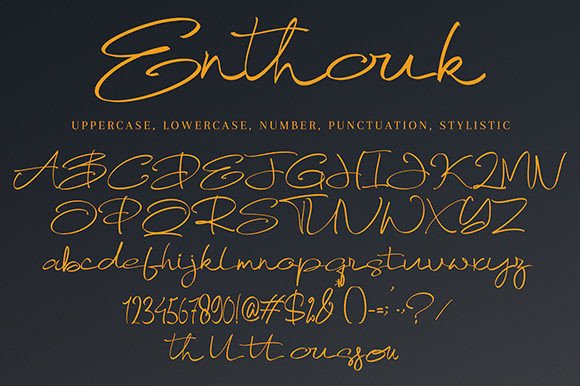
Introduction to Enthouk Font
Have you ever been working on a creative project, pouring your heart and soul into it, only to feel like something is missing? That’s when the perfect design resource can make all the difference. For me, that moment came when I stumbled upon the Enthouk Font – a beautiful and light handwritten font that added a luxury spark to my design project.
With its unique feel and stunning impact, the Enthouk Font is a game-changer for any designer looking to elevate their work. Whether you’re working on a project with a transparent background or a complex layout, this font is sure to bring a touch of sophistication and elegance. And the best part? It’s available for free download, making it a high-quality resource that’s accessible to designers of all levels.
In this article, we’ll dive deeper into the world of the Enthouk Font and explore its many benefits for designers. From its versatility to its professional appeal, we’ll cover everything you need to know about this incredible design resource.
Key Features of Enthouk Font
- High-quality design resource with a wide range of creative possibilities for your next project.
- Includes a transparent background, making it ideal for use in graphics, logos, and other design elements.
- Unique and stylish font design, perfect for adding a touch of sophistication to your creative project.
Honest Review: Enthouk Font
I recently stumbled upon the Enthouk Font, a high-quality design resource that has been making waves in the creative community. As a designer, I’m always on the lookout for fresh and unique fonts to elevate my projects.
The Enthouk Font is a stunning addition to any design arsenal, offering a wide range of styles and formats. The transparent background feature is a game-changer, allowing for seamless integration with any creative project. Whether you’re working on a branding campaign or a simple logo, this font is sure to impress.
- Stylish and modern designs
- Some users may find the font too bold or overpowering
Overall, I’m thoroughly impressed with the Enthouk Font. Its unique style and high-quality design make it a valuable addition to any designer’s toolkit. While it may have some limitations, the benefits far outweigh the drawbacks. If you’re looking for a reliable design resource, I highly recommend giving the Enthouk Font a try.
How to Use Enthouk Font
Introduction to Enthouk Font
The Enthouk Font is a versatile design resource perfect for creative projects requiring a unique and eye-catching aesthetic. With its high-quality, stylish design, this font is ideal for designers and artists looking to add a touch of sophistication to their work.
Tips for Getting the Most Out of Enthouk Font
To get the most out of the Enthouk Font, experiment with different font sizes, colors, and styles to create unique and visually appealing designs. You can also use the font on a transparent background to add an extra layer of sophistication to your work.
Common Use Cases for Enthouk Font
The Enthouk Font is perfect for a wide range of creative projects, including:
- Brand logos and identity
- Social media graphics and advertisements
- Editorials and articles